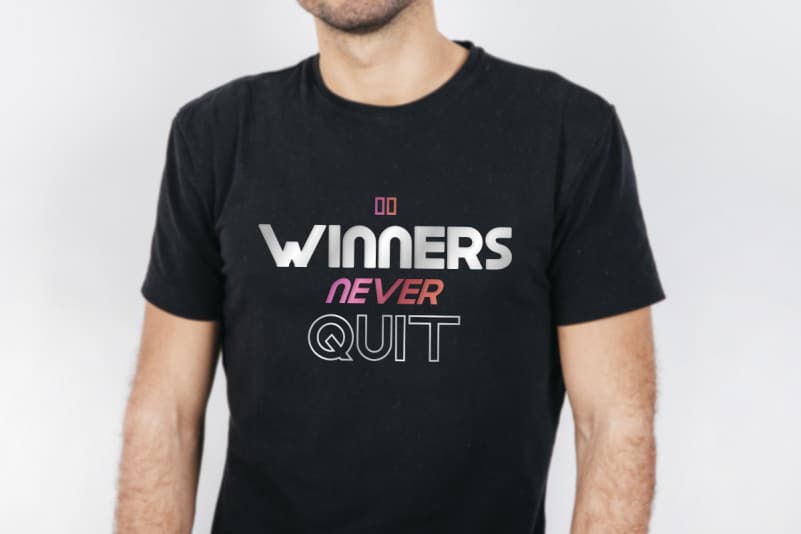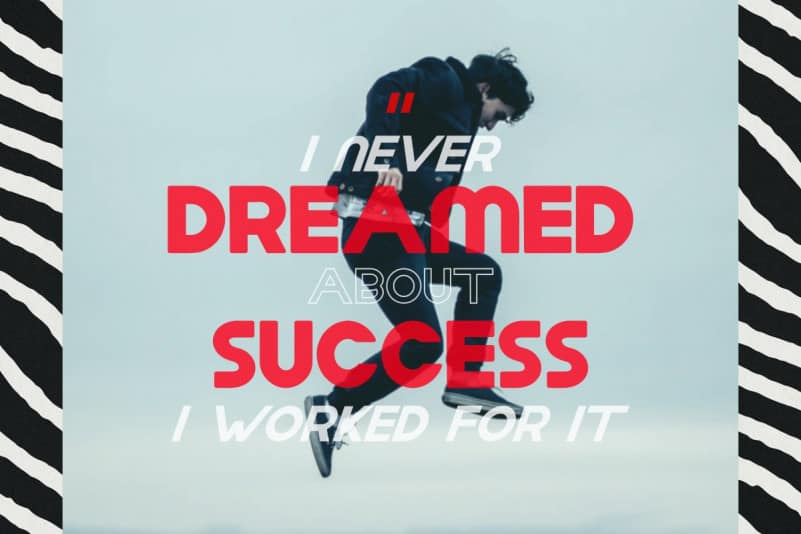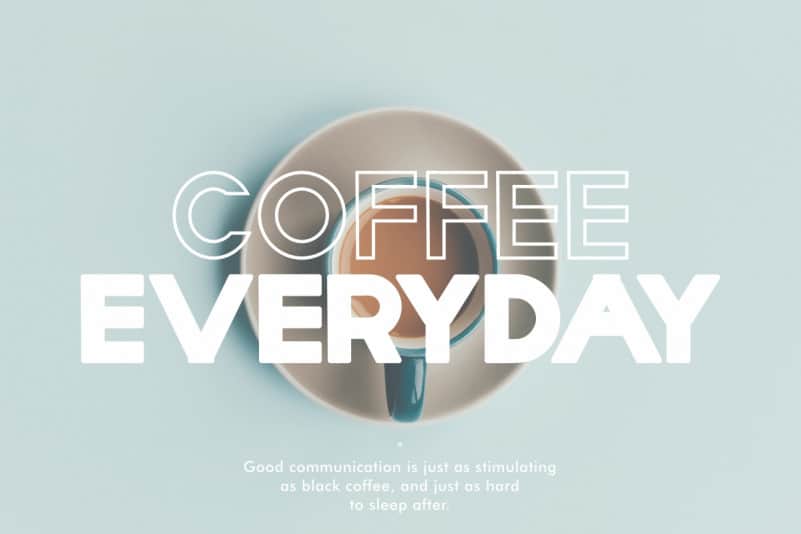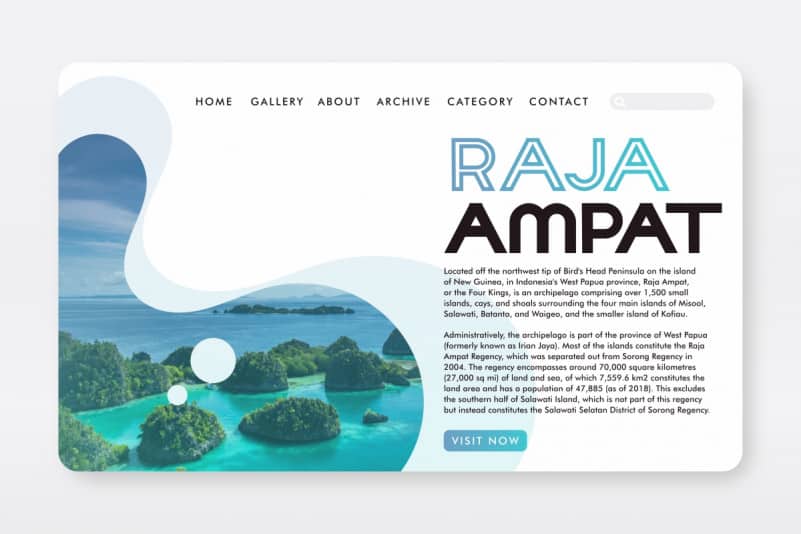
Aday Sans Serif Font
Aday Sans Serif Font is remotely made by RaisProject team in Indonesia. Aday Sans Serif Font was handcrafted for any your special projects including : headlines, promotion, events, branding, advertising, magazine, signage, invitation, stationery, social media posts, label, or and any projects that need unique strong style. The theme/industries of this font is Cosmetic, Beauty, Technology, Game, Magazine, Music, Sport etc